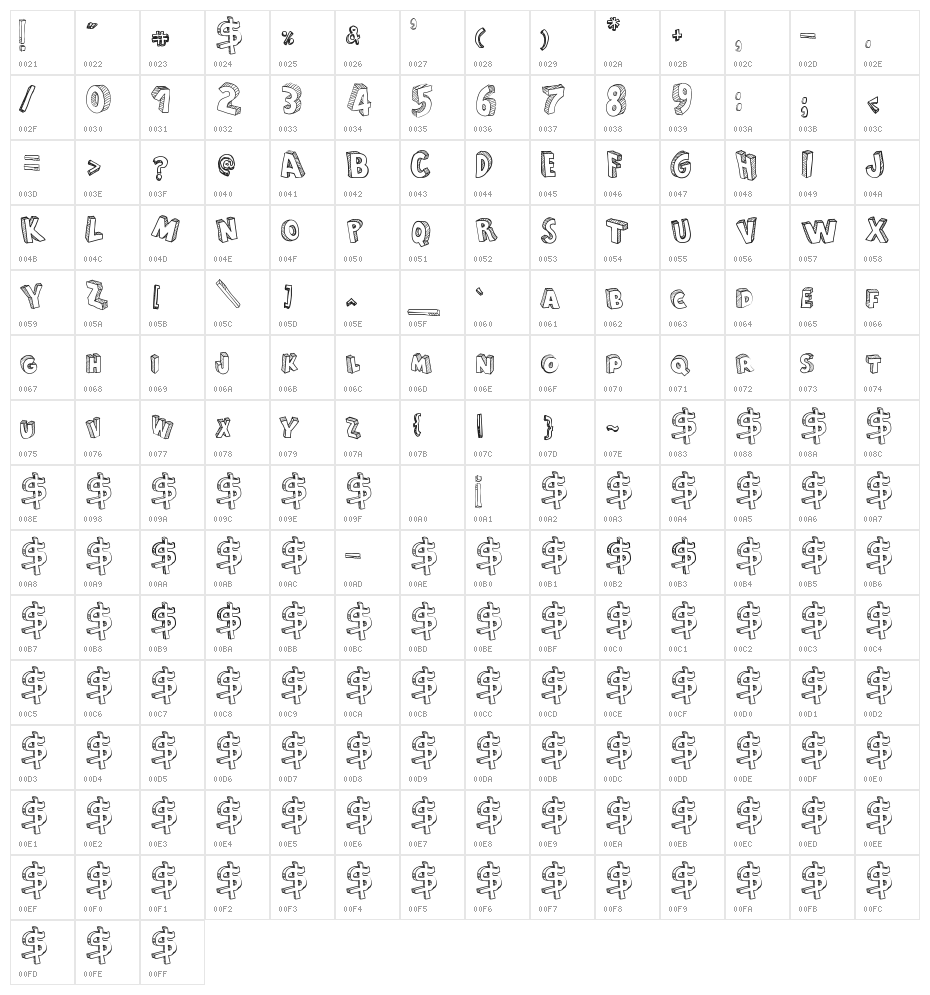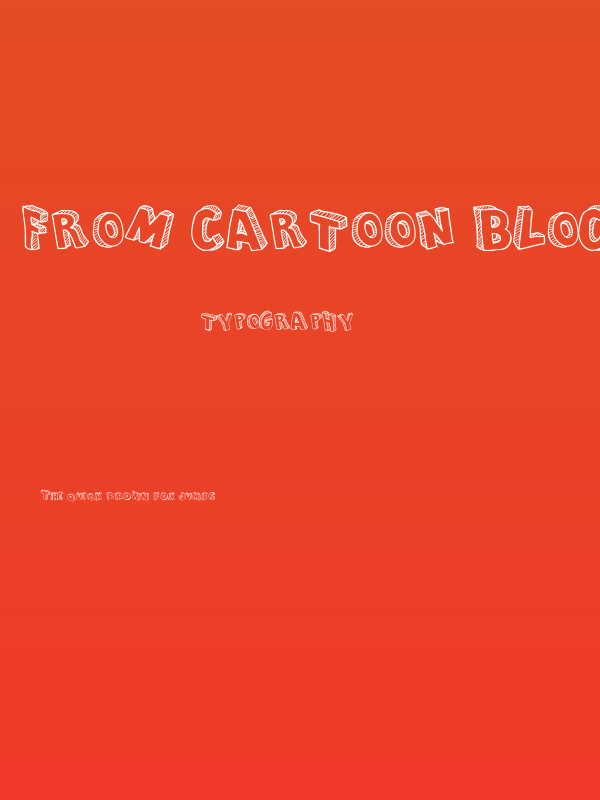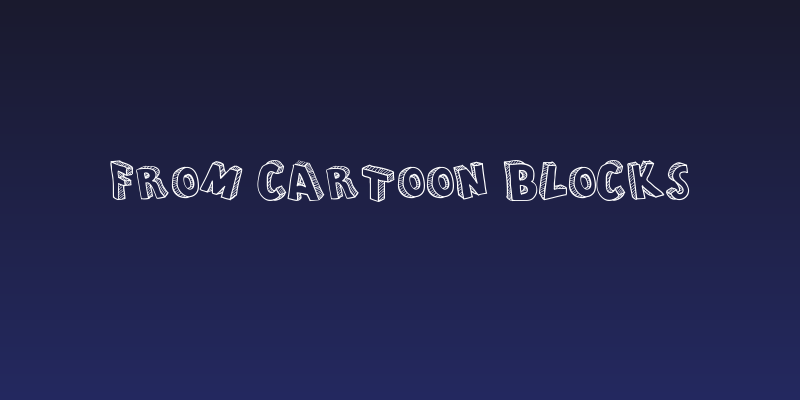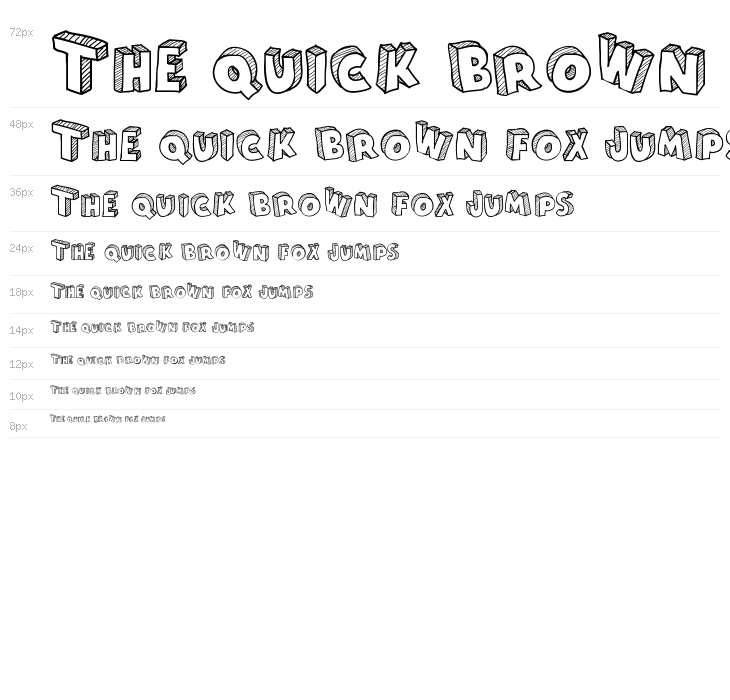
From Cartoon Blocks Font
| Categorie | Cartoon |
| Stile generale | Cartoonish, Fun, Whimsical |
| Progetti proposti | Ideal for children's books, comic strips, playful branding, and eye-catching posters. |